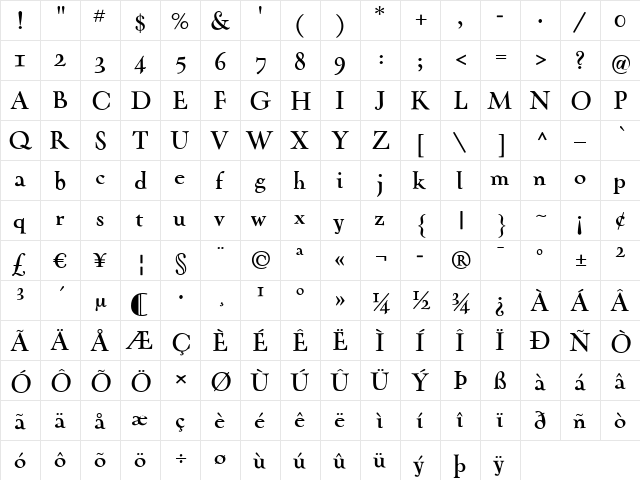
Oneleigh Bold
Design Context for Oneleigh Typeface
Oneleigh is a composed and adaptable typeface that performs quietly and consistently across a wide range of design contexts. Its bold stroke weight gives it real presence on the page.